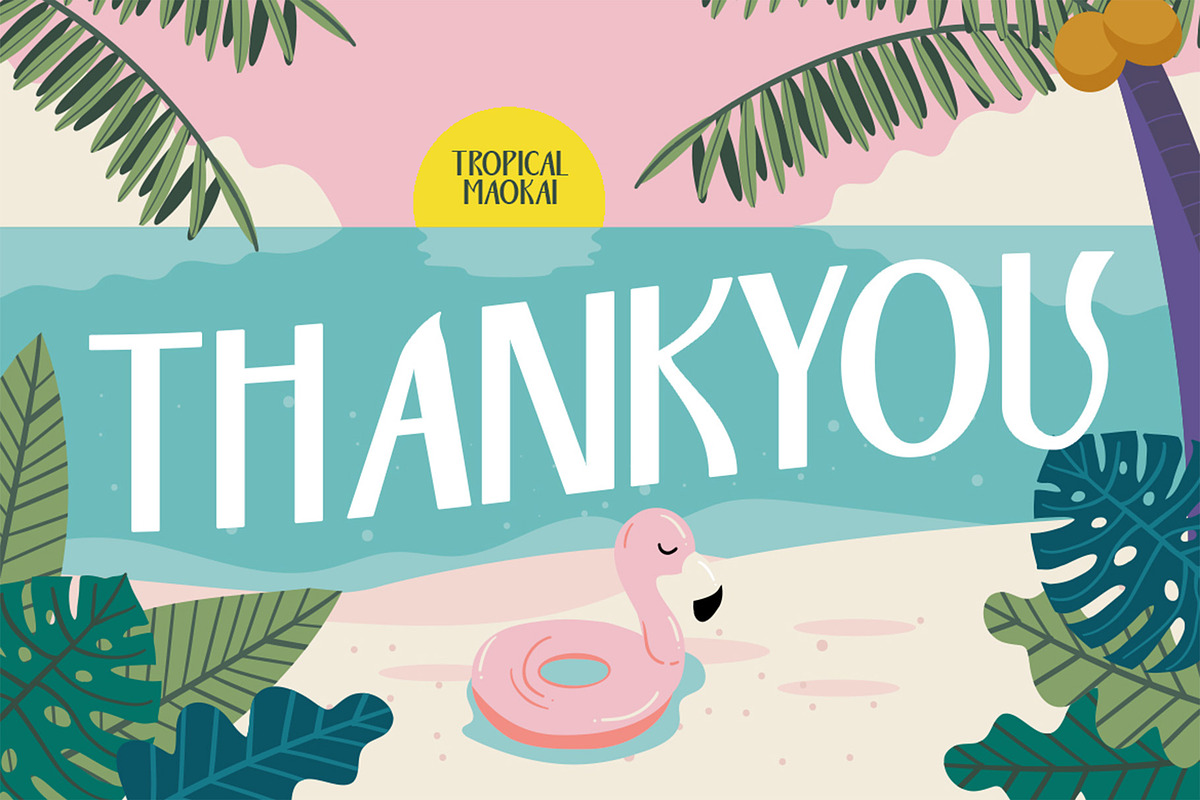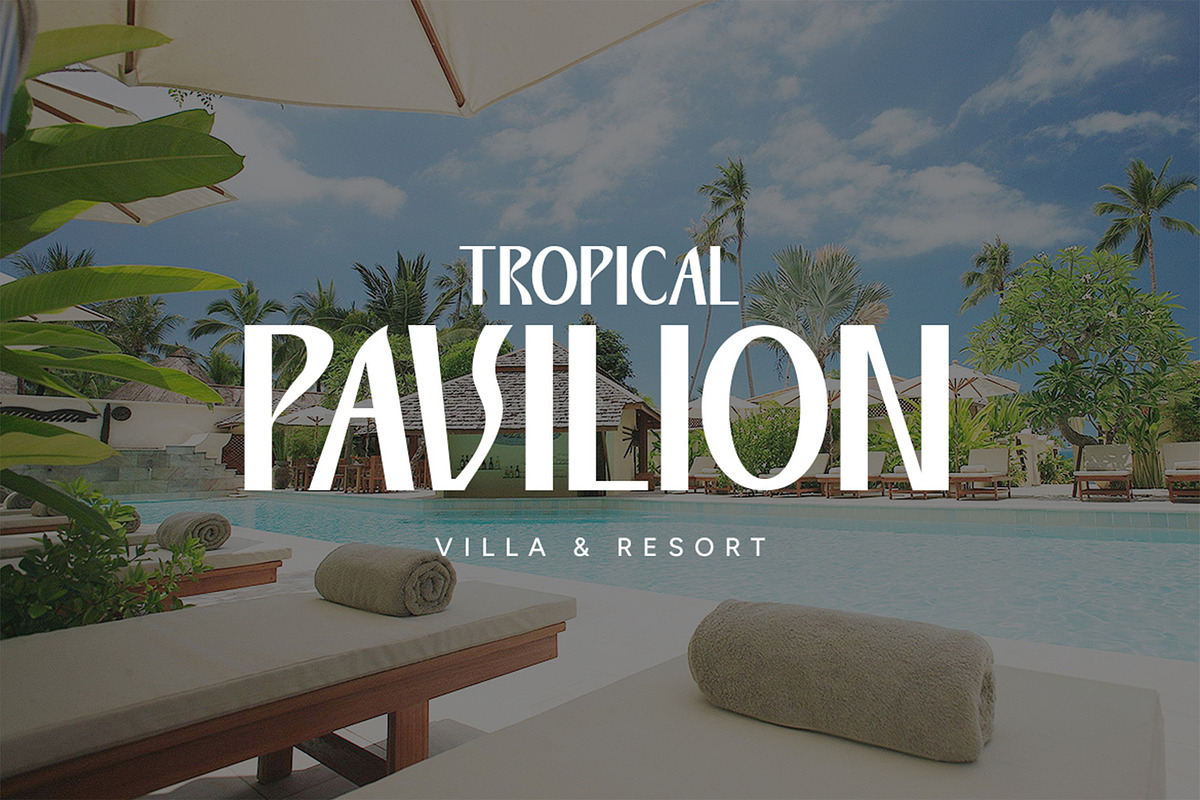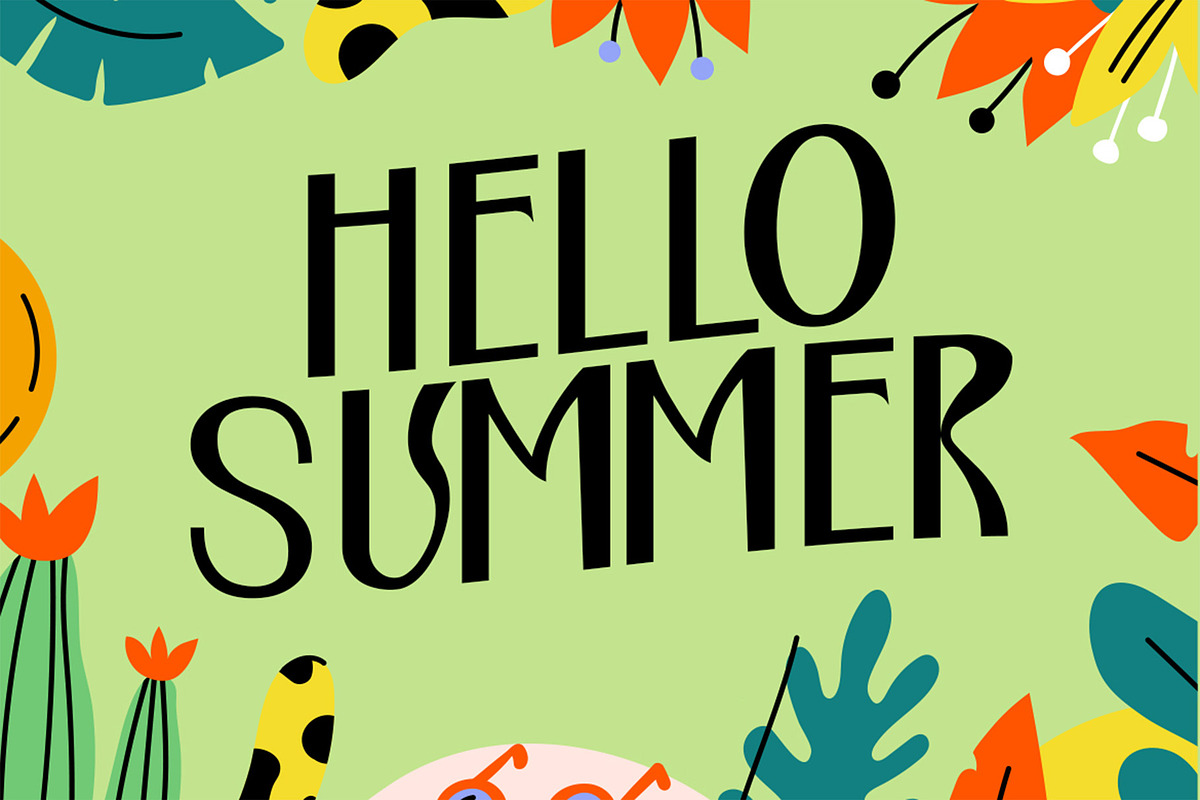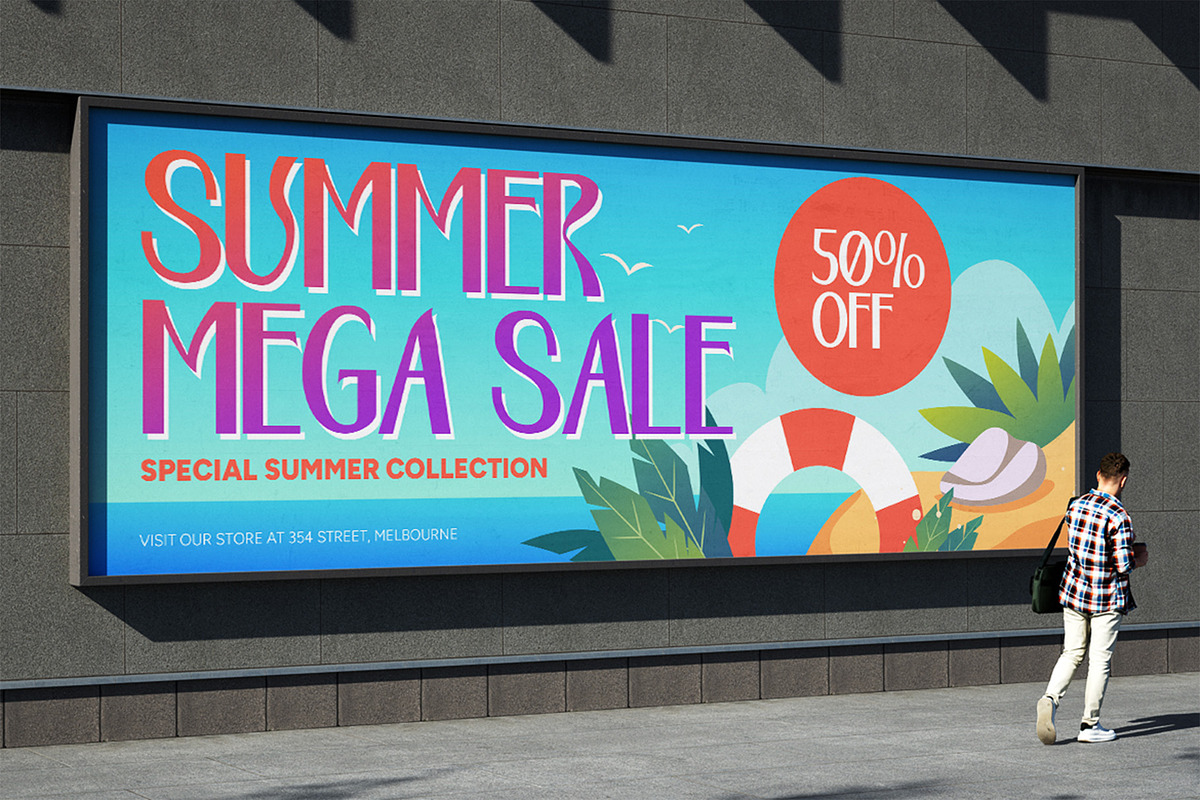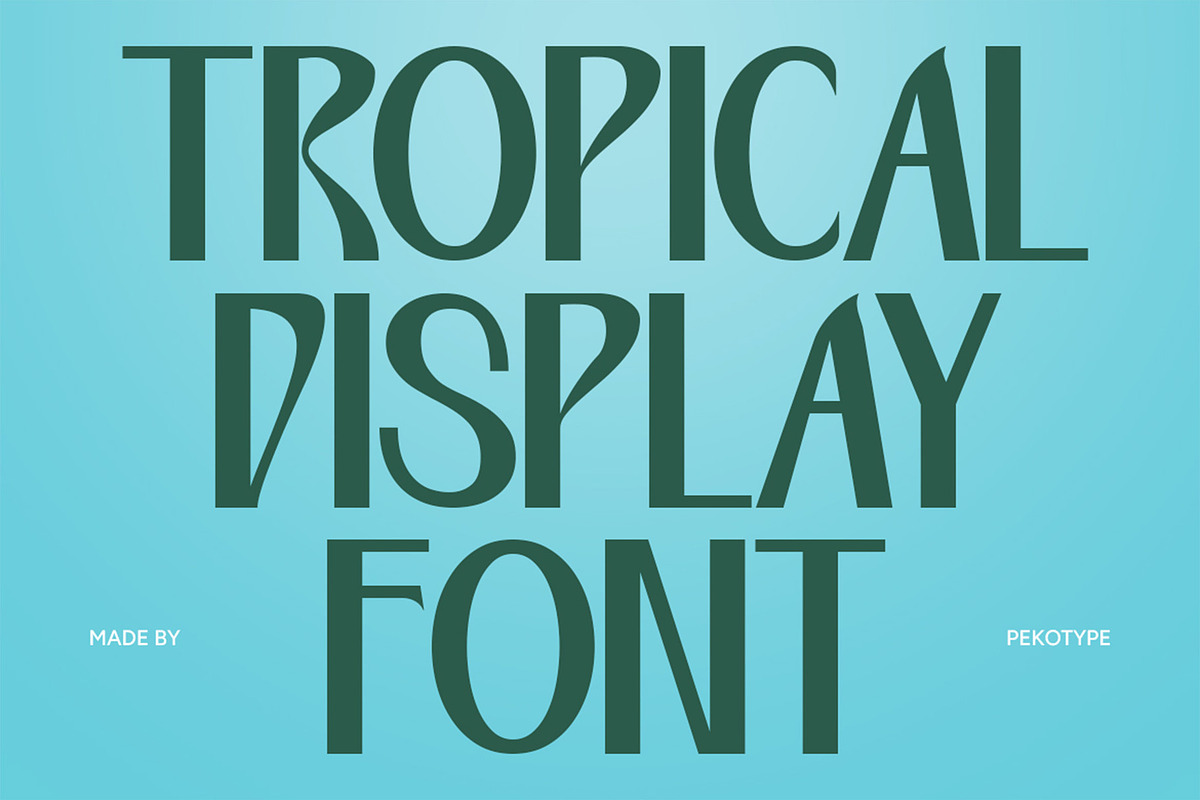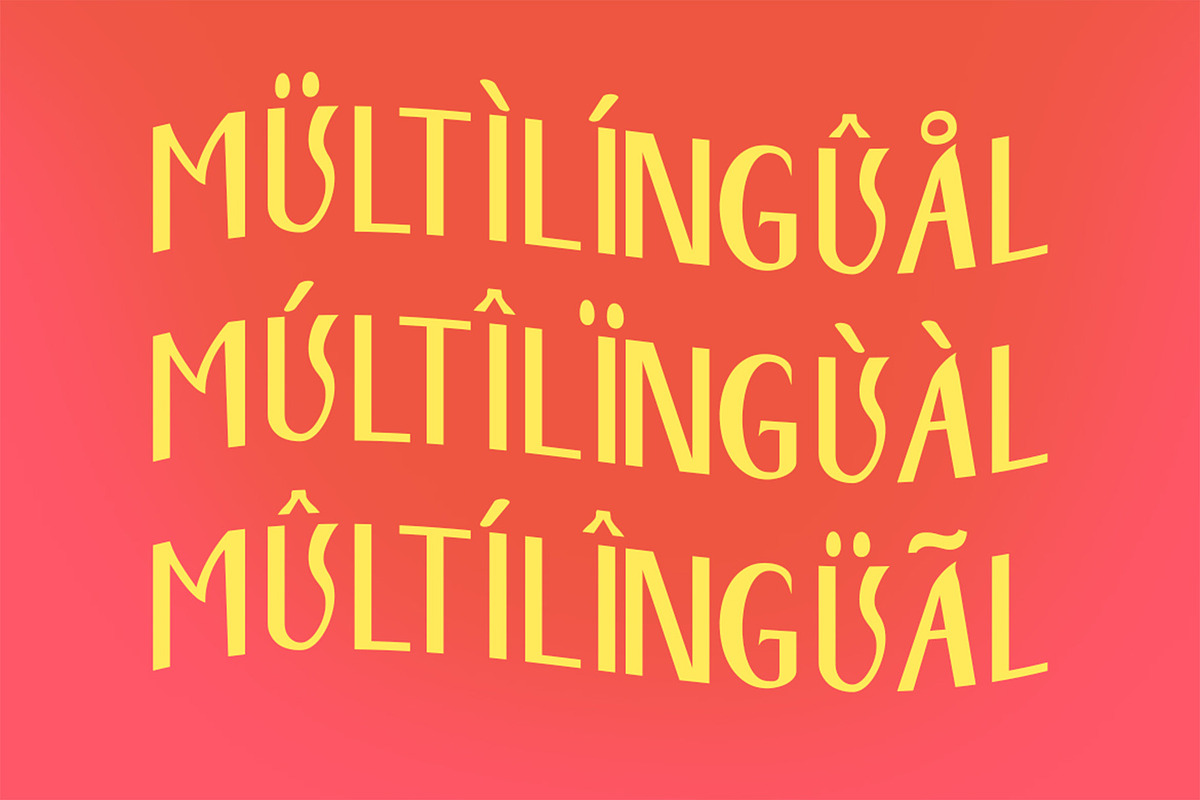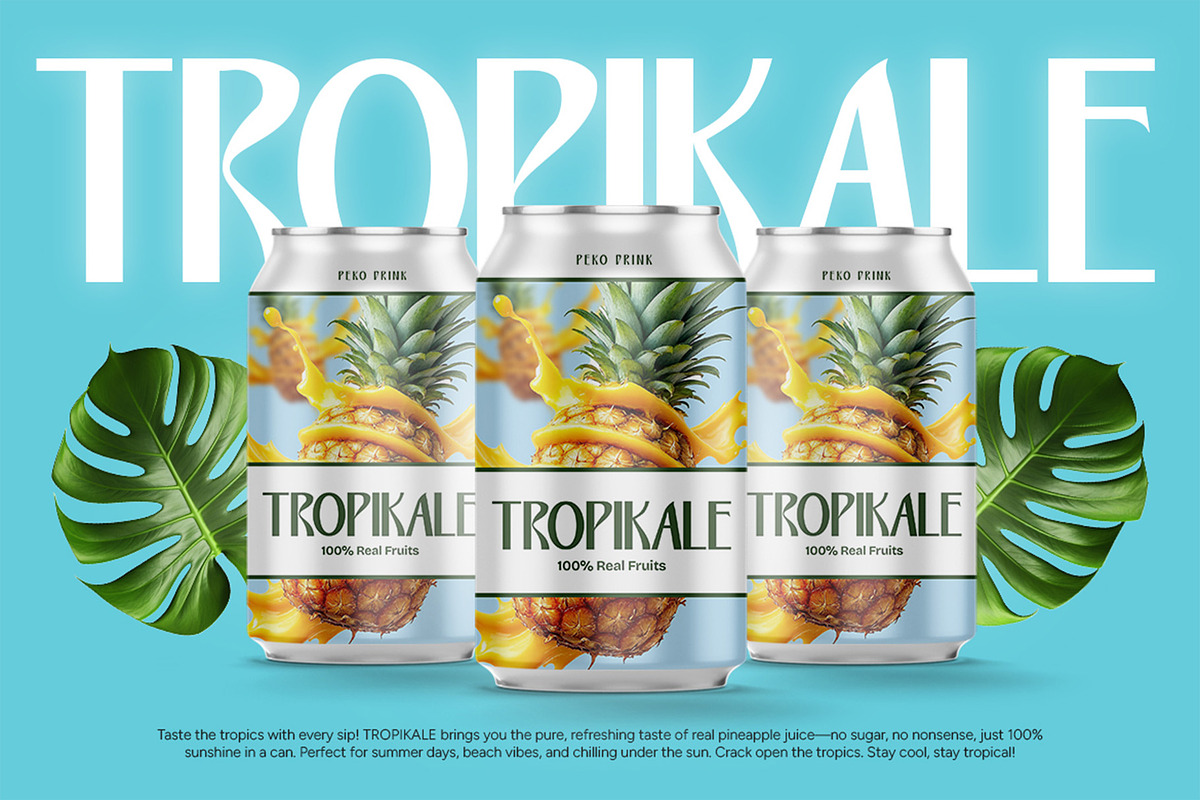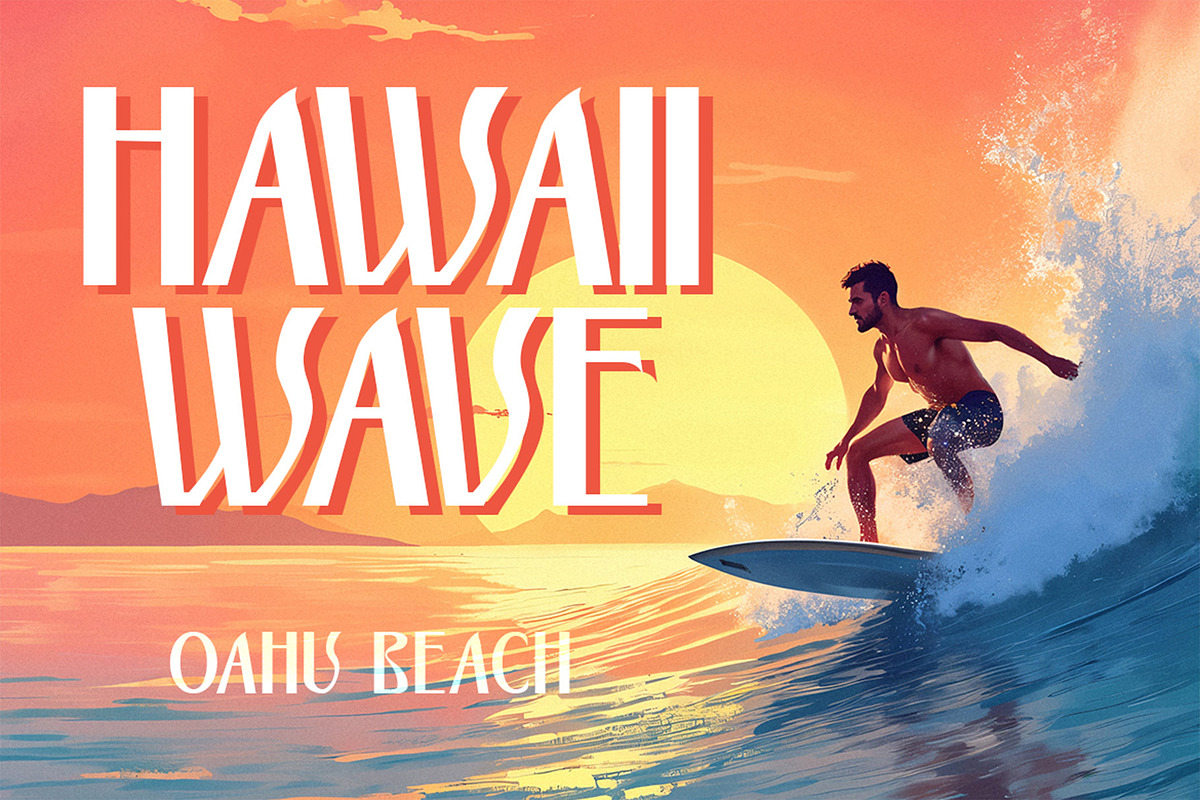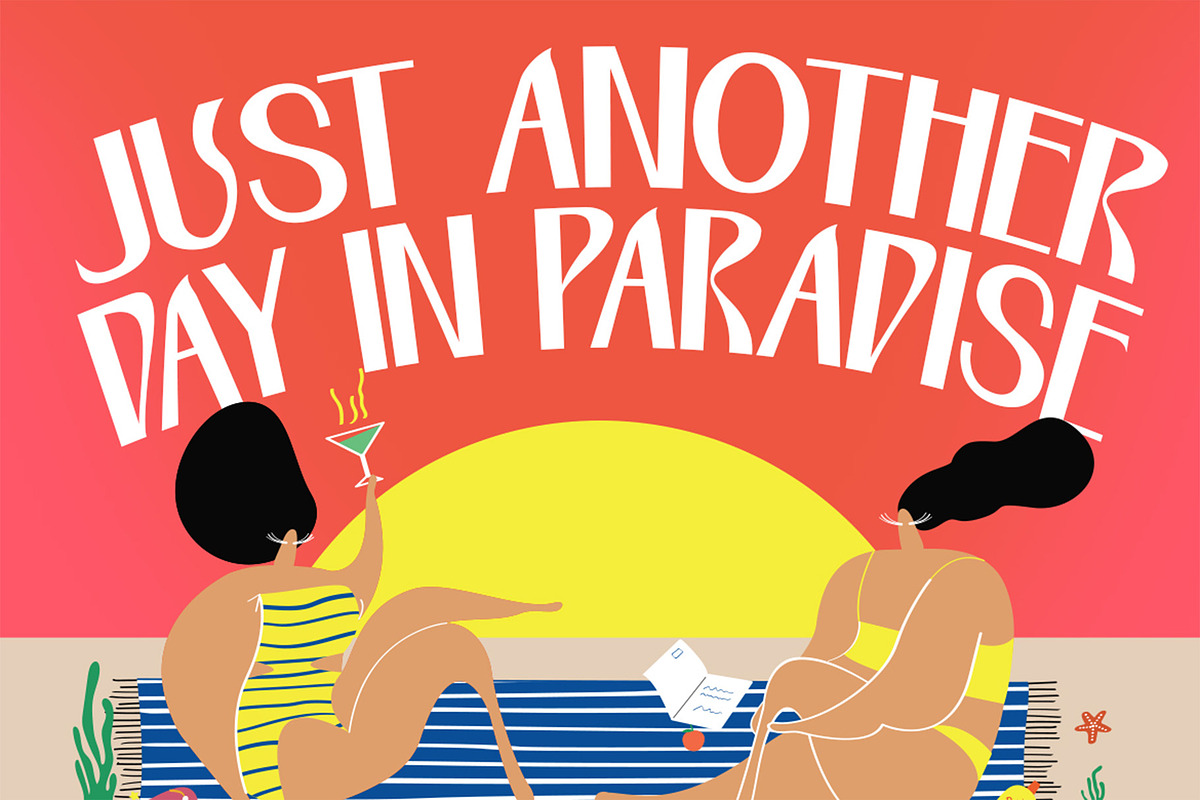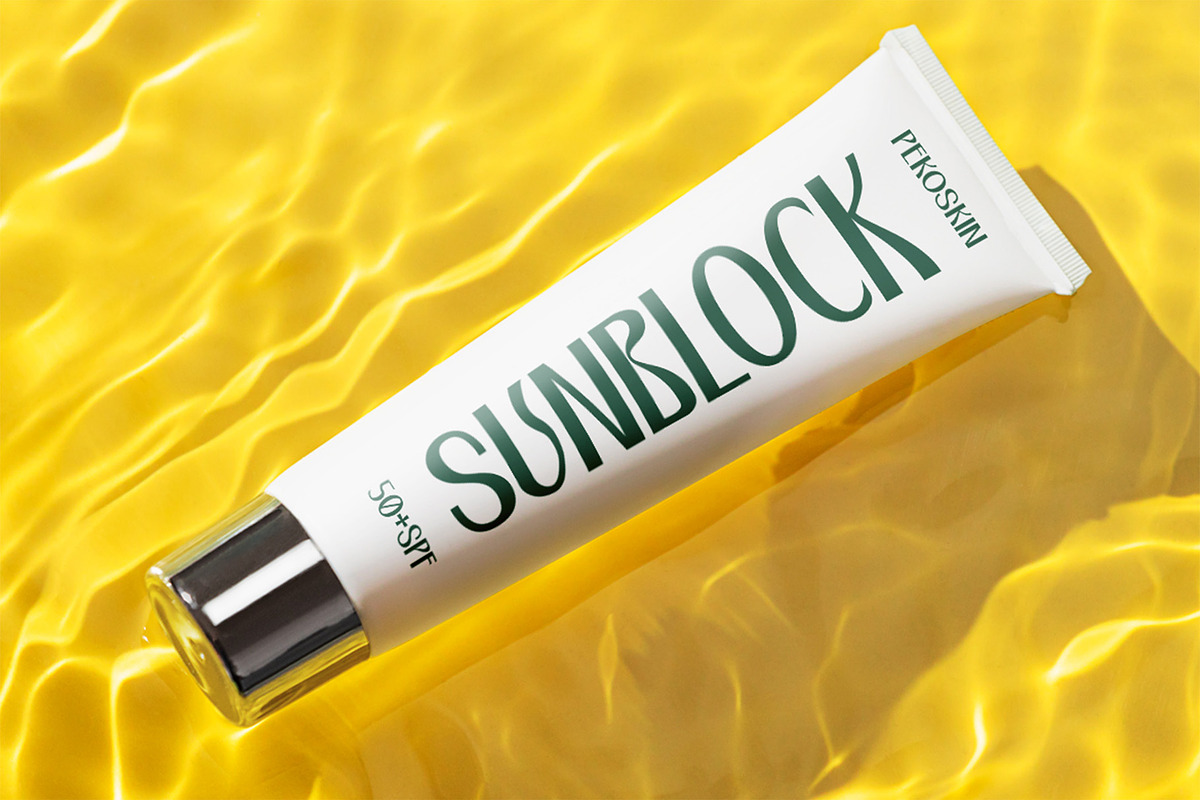
Tropical Maokai - Groovy Summer Font
TROPICAL MAOKAI – A Bold Groovy Display Font Inspired by Endless Summer
Say hello to TROPICAL MAOKAI, a bold and vibrant display font that brings the essence of summer to life. With tall, funky letterforms and a groovy retro twist, this typeface captures the spirit of sun-soaked beaches, exotic vibes, and tropical adventures.
Designed for creatives who want to make a bold statement, TROPICAL MAOKAI is perfect for branding, logos, beach cafes, festival posters, packaging, and social media graphics. Its playful yet striking design makes it ideal for turning heads and setting the mood for fun in the sun.
Whether you're designing for a summer product launch, travel brand, or tropical-themed event, TROPICAL MAOKAI adds a unique personality that feels like a vacation in every letter.
- Number, symbol, & punctuation
- Groovy & bold letterforms
- Perfect for logos, cafe branding, and tropical themes
- Works beautifully for posters, packaging & social media
Bring the heat, the waves, and the good vibes to your design with TROPICAL MAOKAI – where every word feels like a summer escape.